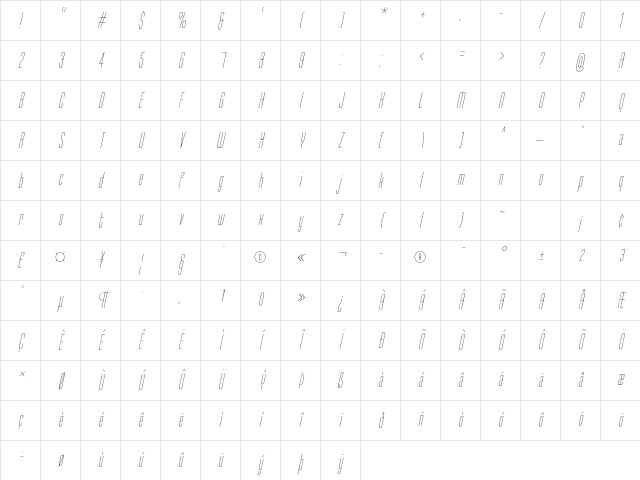
Typo-Longest Thin Demo Italic
Design Context for Typo-Longest Thin Demo
Typo-Longest Thin Demo is a composed and adaptable typeface that performs quietly and consistently across a wide range of design contexts. The slanted form adds forward momentum and visual energy. Its slender proportions lend an understated elegance to any composition.